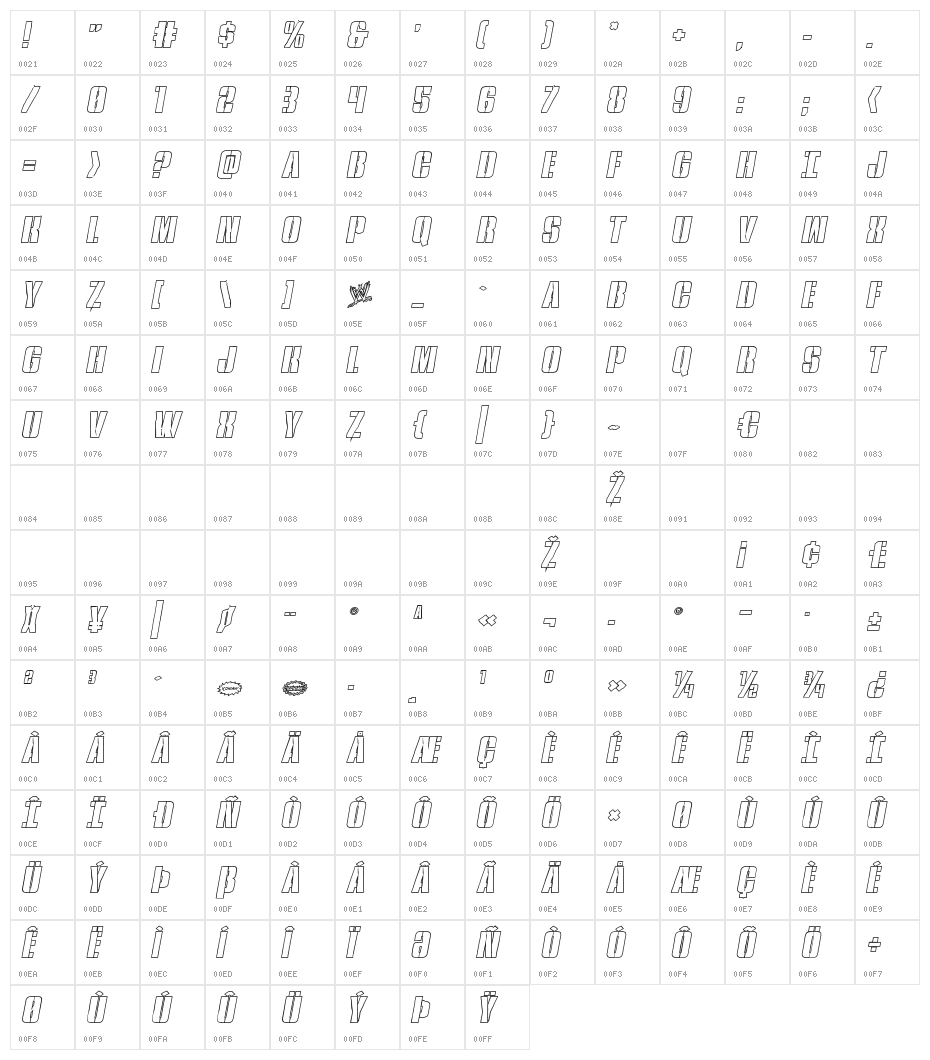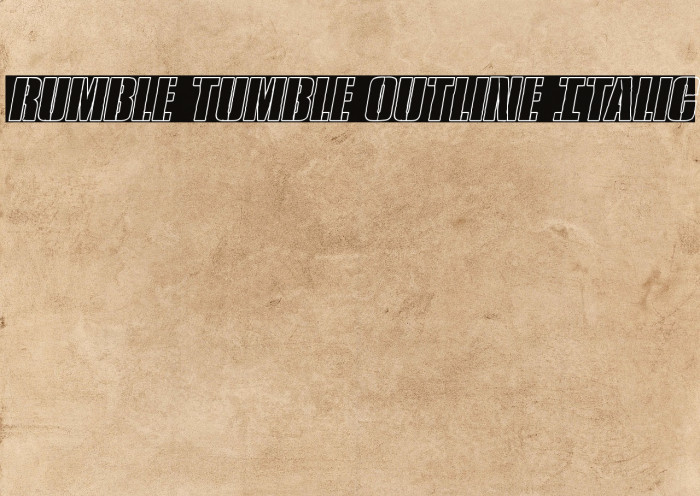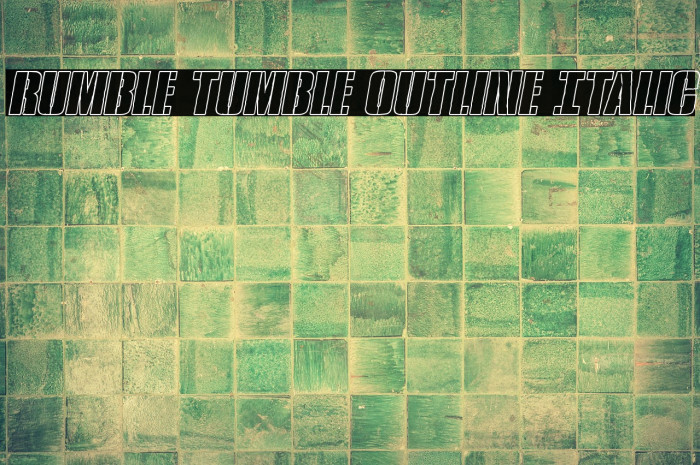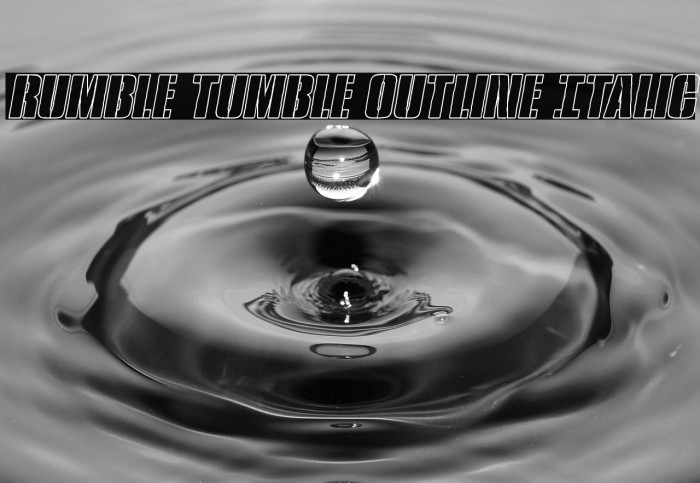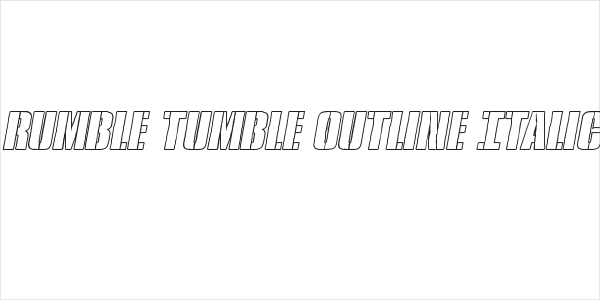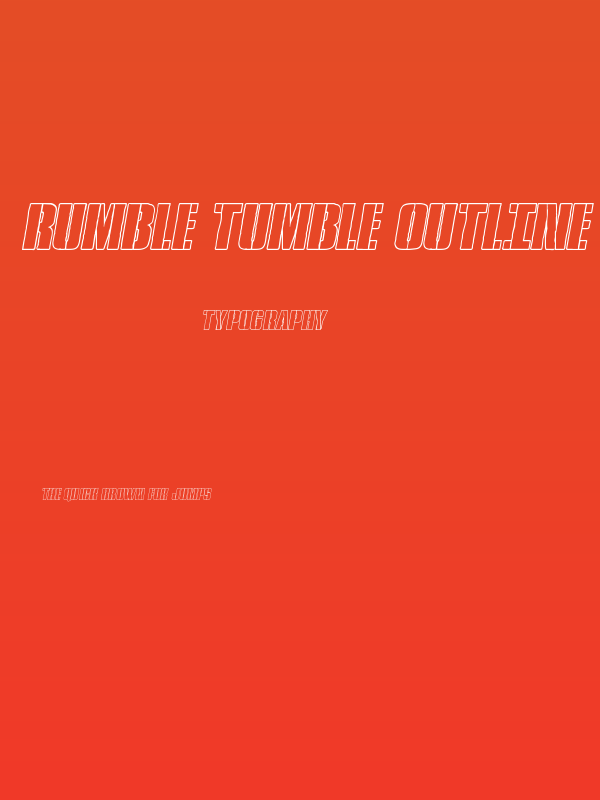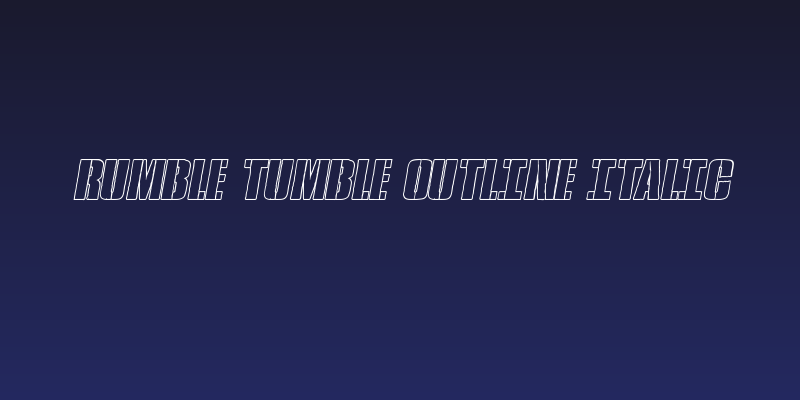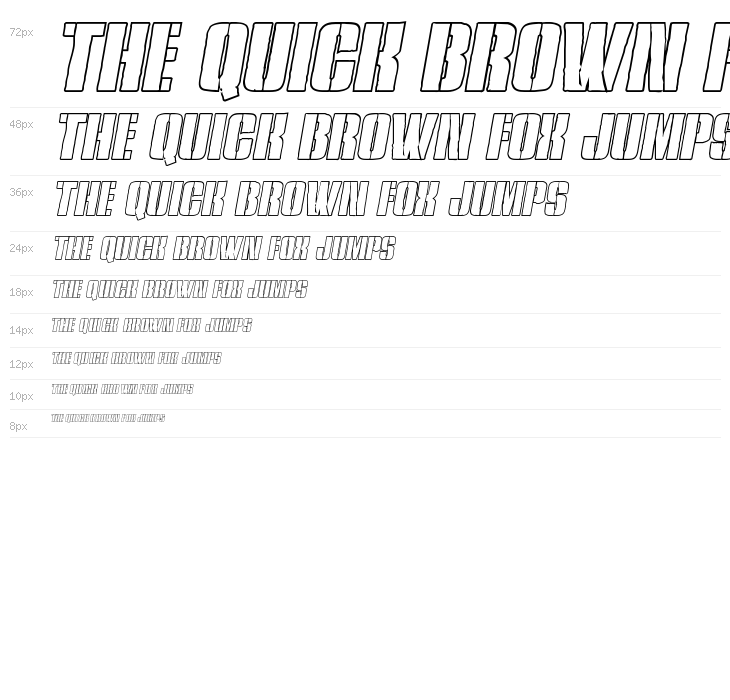
Rumble Tumble Outline Italic Font
Rumble Tumble Outline Italic Description
This font features a bold, outlined style with a distinct italic slant, giving it a dynamic and energetic appearance. The uppercase and lowercase letters maintain a consistent outline thickness, creating a cohesive look across the alphabet. The numbers and special characters follow the same design principles, ensuring uniformity. The font's outline style adds a sense of depth and dimension, making it stand out in any design. Its boldness and italicized form suggest movement and modernity, making it suitable for eye-catching headlines and titles.